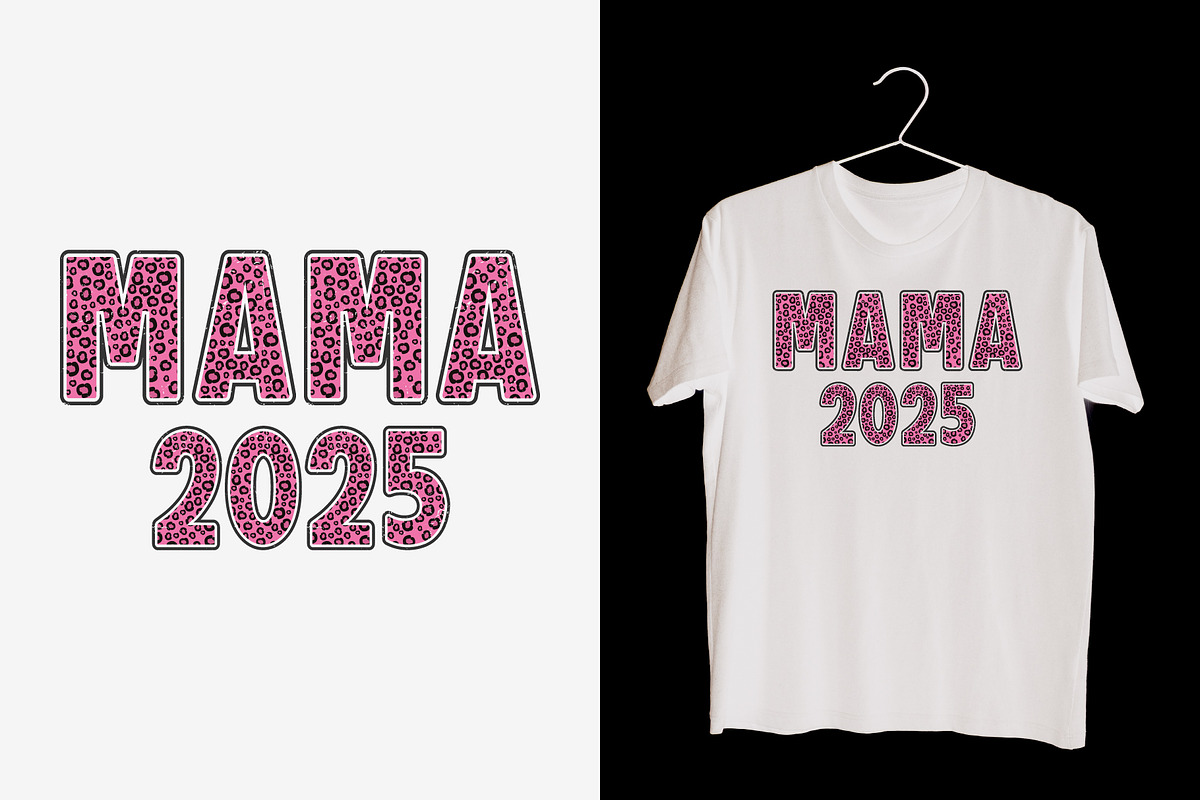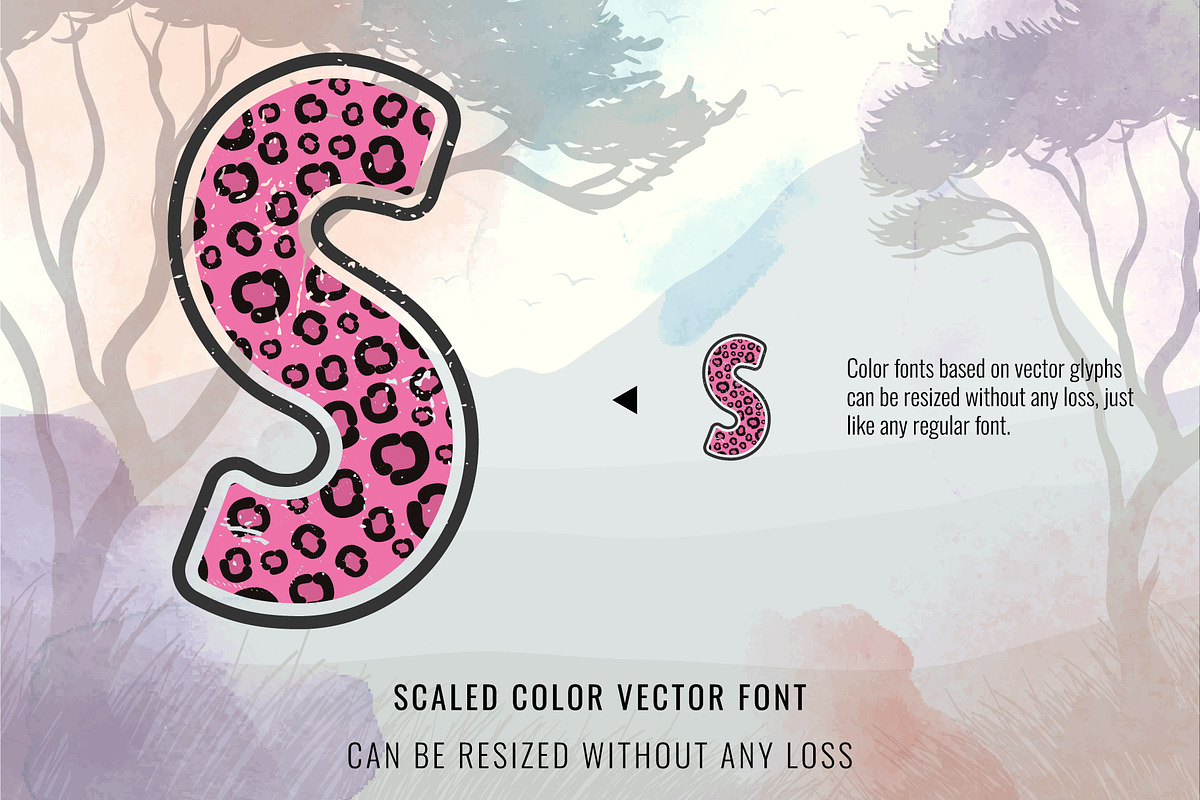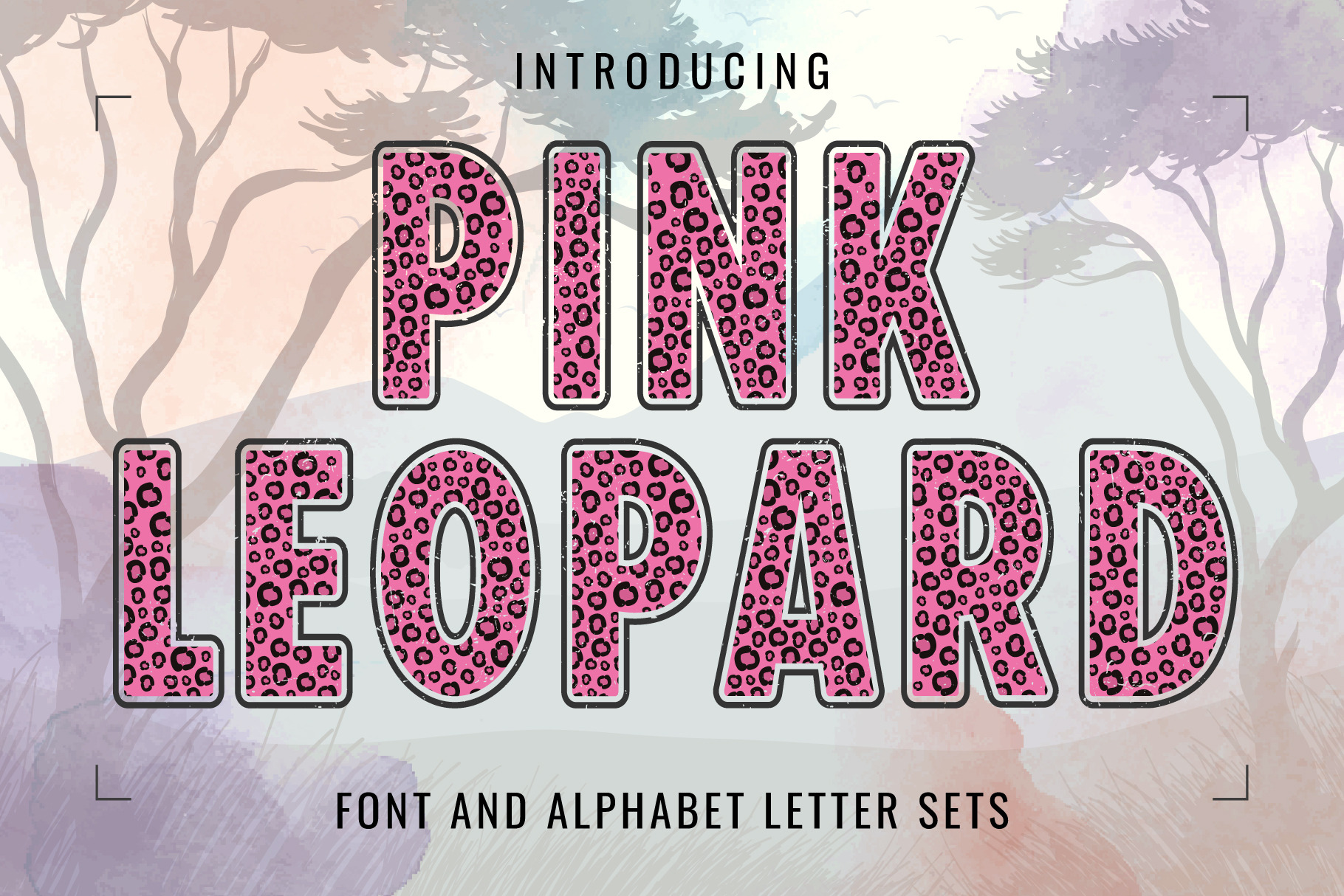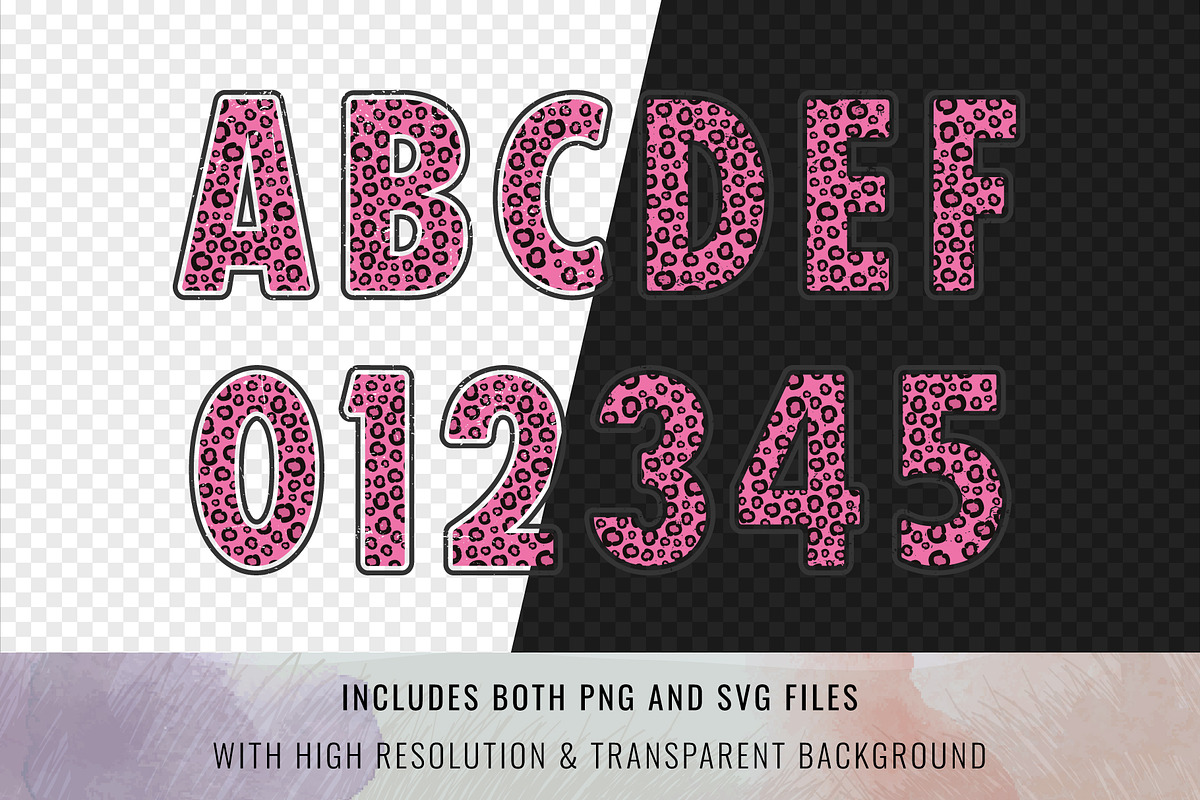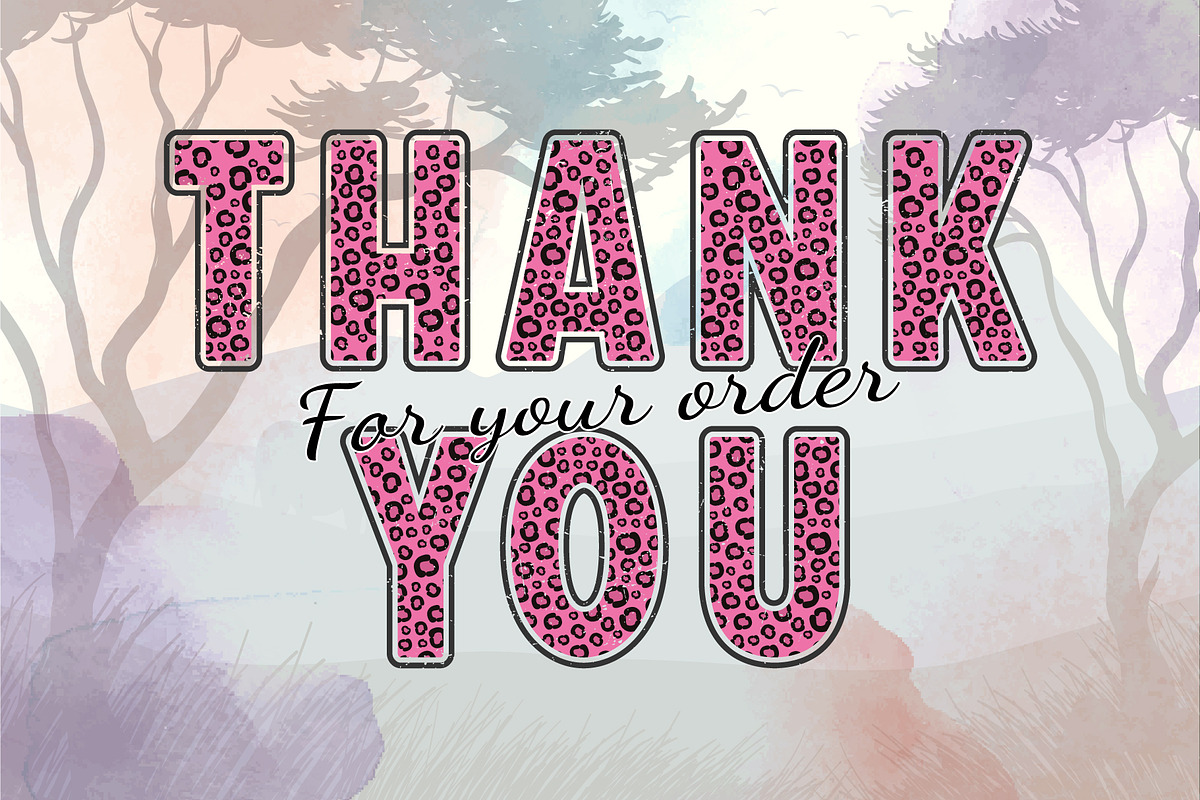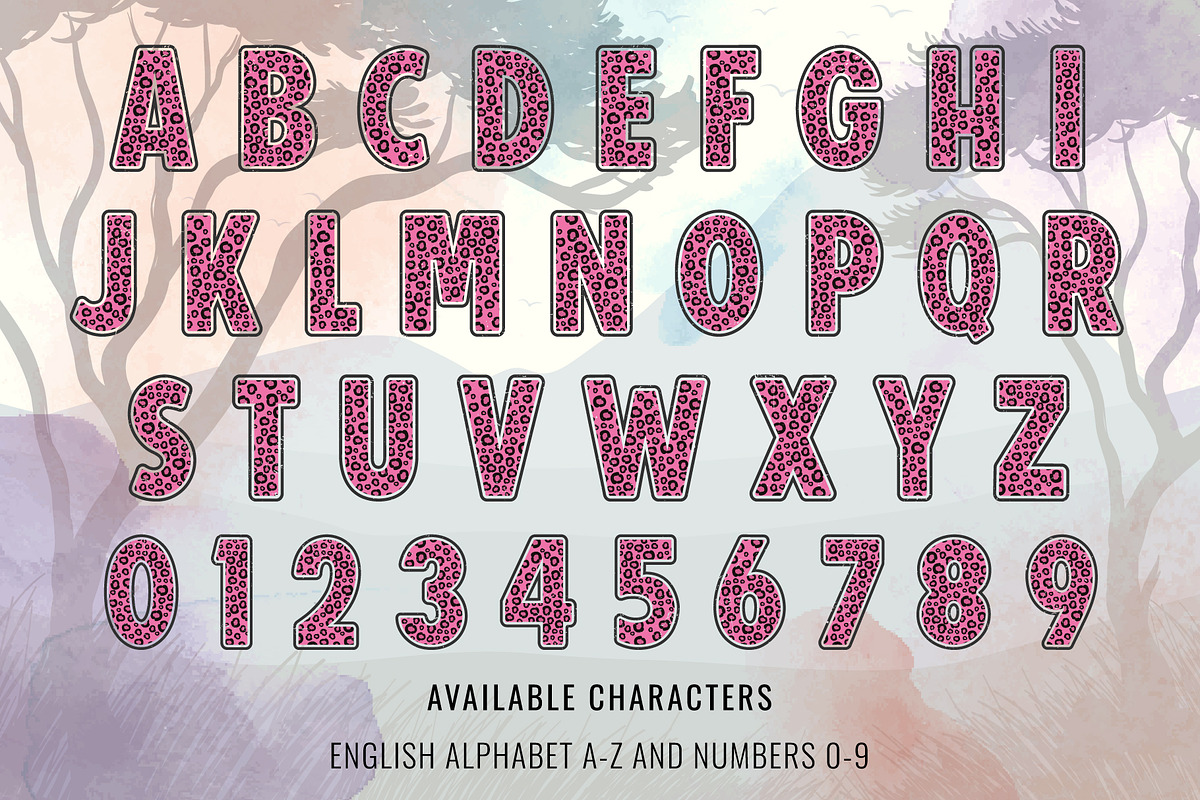
Pink Leopard Font
Introducing “Pink Leopard Font” – This charming typeface is crafted with Inspired by the leopard skin pattern for you to use in your safari animals-theme ideas projects, makes your designs stand out with a cool and original-looking color font perfect for logotypes, headlines, corporate identity, and brand identity, the apparel industry, posters, music, movies, games, magazines, books, comics, and cartoons.
FEATURE:
- This entire font is capitalized.
- Only the English language is available.
- Letters: A B C D E F G H I J K L M N O P Q R S T U V W X Y Z.
- Numbers: 0 1 2 3 4 5 6 7 8 9.
- Excluding punctuation.